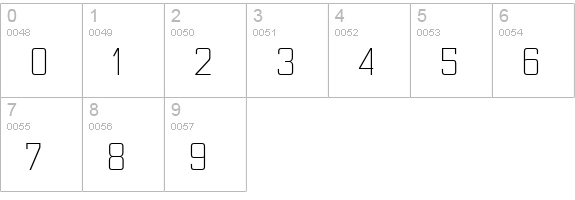
NesobriteScLt-Regular Font Details
NesobriteScLt-Regular is the standard, neutral variant in the NesobriteScLt typeface family \xE2\x80\x94 well suited to general body text, paragraphs, and standard typographic work.
NesobriteScLt-Regular is a versatile and modern font that exudes a sense of simplicity and elegance. Its clean lines and balanced proportions make it perfect for a wide range of design projects, from branding to editorial design. This font is ideal for creating a contemporary and refined look, while still maintaining readability and clarity. What sets NesobriteScLt-Regular apart is its free availability for download at FontsMarket.com. This means that you can easily access this high-quality font without any cost, making it a valuable addition to your design toolkit. Whether you're working on a personal project or a professional assignment, NesobriteScLt-Regular offers a seamless and stylish solution for all your typography needs. Elevate your designs with this free and accessible font today.